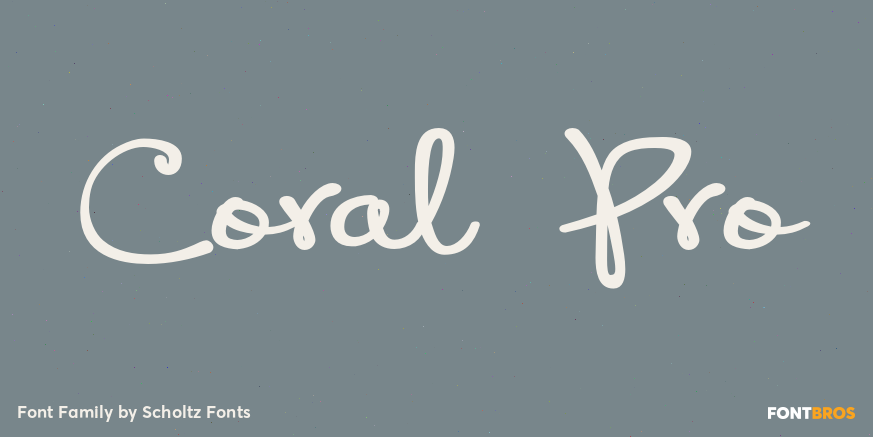
Coral Pro
Coral Pro is a relaxed and very readable script font. Based on the earlier Coral script. It has been updated, and now has all the features usually included in a fully professional font. Language support includes all European character sets. Coral Pro…